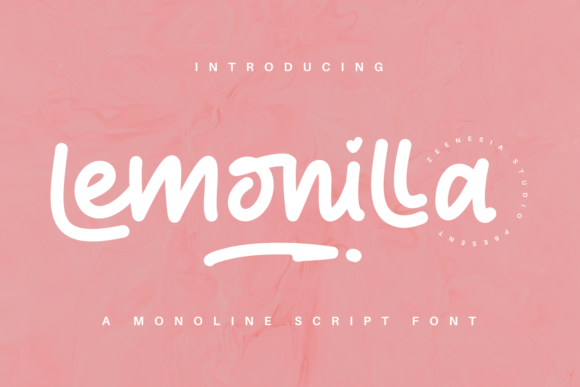
Lemonilla Font: A Timeless Handwritten Font for Stunning Designs
In the world of typography, fonts play a crucial role in making or breaking a design. A well-chosen font can elevate your brand’s visual identity, convey your message effectively, and leave a lasting impression on your audience. If you’re on the hunt for a font that exudes elegance, sophistication, and a touch of playfulness, look no further than Lemonilla Font. In this article, we’ll dive into the world of Lemonilla, exploring its unique features, uses, and benefits.
What is Lemonilla Font?
Lemonilla Font is a lovely and timeless handwritten font that has captured the hearts of designers and typography enthusiasts alike. Its unique blend of classic and modern elements makes it an excellent choice for creating eye-catching logos, branding materials, and quotes. Every letter in the Lemonilla Font has a distinct and beautiful touch, which will breathe life into your designs and set them apart from the crowd.
Key Features of Lemonilla Font
- Handwritten elegance: Lemonilla Font boasts a beautiful, handwritten aesthetic that adds a personal touch to your designs.
- Unique letterforms: Each letter in the font has a distinct character, making your text stand out and conveying a sense of sophistication.
- Timeless appeal: The font’s classic design ensures it won’t go out of style, making it a great investment for your brand’s visual identity.
- Versatility: Lemonilla Font is suitable for a wide range of design applications, from logos and branding to quotes and social media graphics.
Uses and Applications of Lemonilla Font
Lemonilla Font is an incredibly versatile typeface that can be used in various design contexts. Here are some ideas to get you started:
- Logo design: Create a stunning logo for your brand that exudes elegance and sophistication.
- Branding materials: Use Lemonilla Font in your business cards, letterheads, and packaging to create a cohesive visual identity.
- Quotes and typography: Add a touch of personality to your quotes, posters, and social media graphics with the beautiful letterforms of Lemonilla Font.
- Wedding and event design: The font’s romantic and whimsical feel makes it perfect for wedding invitations, save-the-date cards, and other event materials.
Benefits of Using Lemonilla Font
So, why choose Lemonilla Font for your design projects? Here are some benefits you can expect:
- Stand out from the crowd: The font’s unique letterforms and elegant design will help your brand stand out in a crowded market.
- Convey sophistication and elegance: Lemonilla Font’s classic design and beautiful letterforms will add a touch of sophistication to your brand’s visual identity.
- Save time and effort: With Lemonilla Font, you can create stunning designs in no time, thanks to its versatility and ease of use.
- Enhance your brand’s storytelling: The font’s unique character will help you tell your brand’s story and connect with your audience on a deeper level.
Tips for Using Lemonilla Font Effectively
To get the most out of Lemonilla Font, here are some tips to keep in mind:
- Use it sparingly: While Lemonilla Font is beautiful, it’s best to use it sparingly to avoid overwhelming your design.
- Experiment with colors and textures: Play around with different colors and textures to add depth and interest to your design.
- Pair it with complementary fonts: Combine Lemonilla Font with complementary fonts to create a visually appealing contrast.
- Pay attention to typography: Make sure to adjust the font size, line spacing, and kerning to ensure your text is easy to read.
In conclusion, Lemonilla Font is a timeless handwritten font that offers a unique blend of elegance, sophistication, and playfulness. Its versatility, beautiful letterforms, and classic design make it an excellent choice for a wide range of design applications. By incorporating Lemonilla Font into your design projects, you’ll be able to create stunning visuals that capture your audience’s attention and leave a lasting impression.
Final Thoughts
If you’re looking for a font that will elevate your brand’s visual identity and add a touch of personality to your designs, look no further than Lemonilla Font. With its unique features, versatility, and timeless appeal, it’s an excellent addition to any designer’s toolkit.